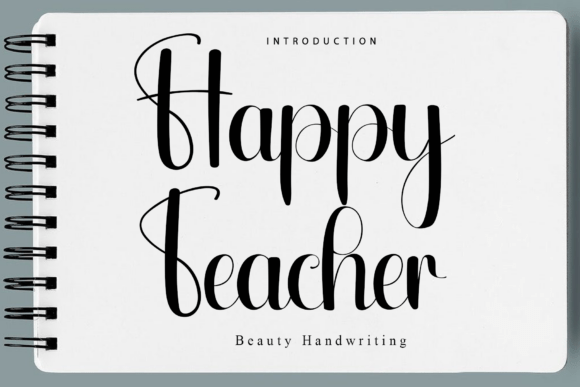
Introducing Happy Teacher Font: The Sweet and Cursive Handwritten Font for Your Design Needs
In the world of typography, fonts play a crucial role in conveying the tone and personality of a brand, product, or service. When it comes to creating visually appealing designs, the right font can make all the difference. If you’re looking for a font that exudes joy, romance, and elegance, look no further than the Happy Teacher Font. This sweet and cursive handwritten font is perfect for adding a touch of whimsy and sophistication to your design projects.
What is Happy Teacher Font?
Happy Teacher Font is a beautiful, cursive handwritten font that is designed to bring a sense of joy and warmth to your designs. With its gentle and flowing strokes, this font is perfect for creating elegant and sophisticated designs that are sure to capture the attention of your audience.
Whether you’re a designer, artist, or simply someone who loves to create, Happy Teacher Font is a versatile font that can be used for a wide range of design projects. From branding and logos to wedding invitations and greeting cards, this font is sure to add a touch of romance and whimsy to your designs.
Key Features of Happy Teacher Font
- Sweet and Cursive Handwritten Style: Happy Teacher Font features a beautiful, cursive handwritten style that is perfect for creating elegant and sophisticated designs.
- Versatile and Flexible: This font is versatile and flexible, making it perfect for use on a wide range of design projects, from branding and logos to wedding invitations and greeting cards.
- Easy to Read: Happy Teacher Font is easy to read, even at small sizes, making it perfect for use on a variety of design materials, including business cards, brochures, and more.
- High-Quality Design: This font is designed with high-quality and precision, ensuring that it looks great on any device or medium.
What Can I Use Happy Teacher Font For?
Happy Teacher Font is a versatile font that can be used for a wide range of design projects, including:
- Branding and Logos: Use Happy Teacher Font to create a unique and memorable brand identity that stands out from the crowd.
- Wedding Invitations and Stationery: Add a touch of romance and whimsy to your wedding invitations, stationery, and other wedding-related design materials.
- Greeting Cards and Invitations: Use Happy Teacher Font to create beautiful and elegant greeting cards and invitations for any occasion.
- Fashion and Lookbook: Add a touch of elegance and sophistication to your fashion designs, lookbooks, and other marketing materials.
- Marketing and Promotion: Use Happy Teacher Font to create eye-catching and effective marketing materials, including brochures, flyers, and more.
Why Choose Happy Teacher Font?
There are many reasons why you should choose Happy Teacher Font for your design needs. Here are just a few:
- Unique and Creative: Happy Teacher Font is a unique and creative font that will add a touch of personality to your designs.
- Elegant and Sophisticated: This font is elegant and sophisticated, making it perfect for creating high-end designs that are sure to impress.
- High-Quality Design: This font is designed with high-quality and precision, ensuring that it looks great on any device or medium.
Tips for Using Happy Teacher Font
Here are a few tips for using Happy Teacher Font in your designs:
- Use it with Other Fonts: Happy Teacher Font pairs well with other fonts, so feel free to experiment with different font combinations to create a unique look.
- Experiment with Different Sizes: This font looks great at a variety of sizes, so experiment with different sizes to find the one that works best for your design.
- Use it for Headings and Titles: Happy Teacher Font is perfect for use in headings and titles, where its elegant and sophisticated style can really shine.
In conclusion, Happy Teacher Font is a beautiful and versatile font that is perfect for adding a touch of joy, romance, and elegance to your design projects. With its sweet and cursive handwritten style, this font is sure to capture the attention of your audience and leave a lasting impression. Whether you’re a designer, artist, or simply someone who loves to create, Happy Teacher Font is a great choice for any design project.